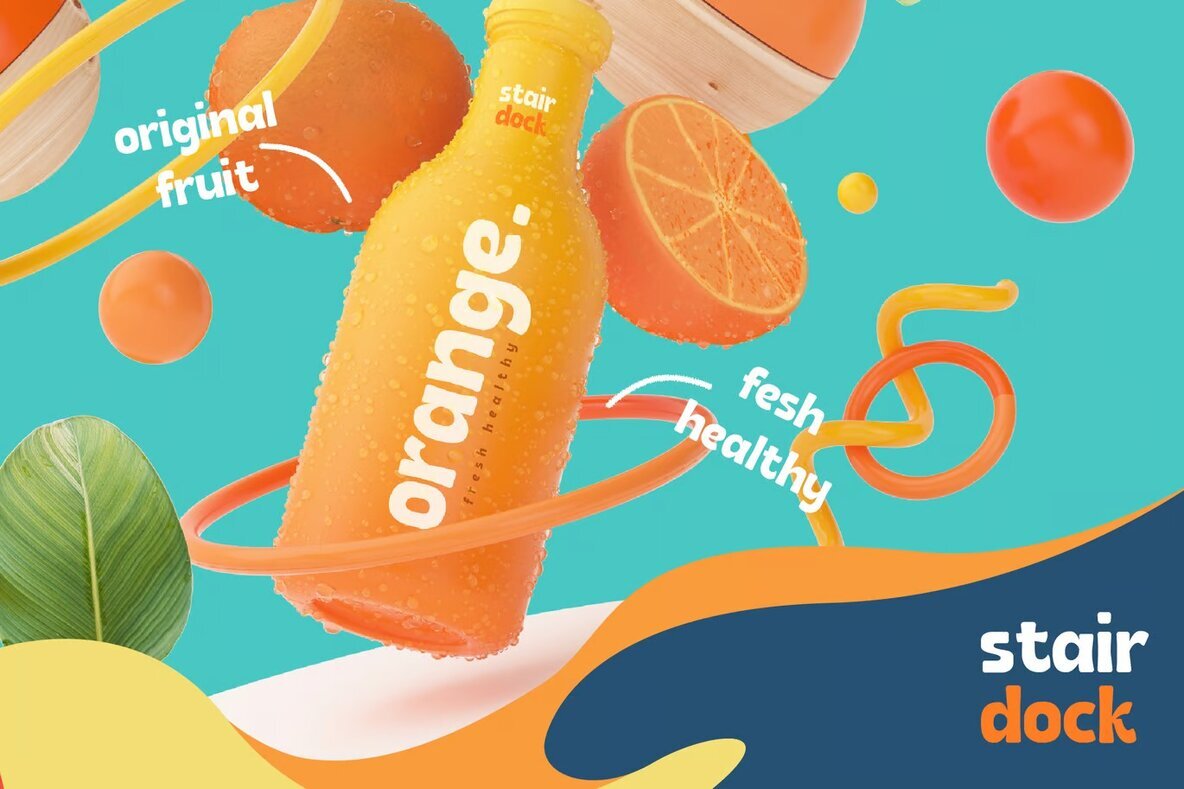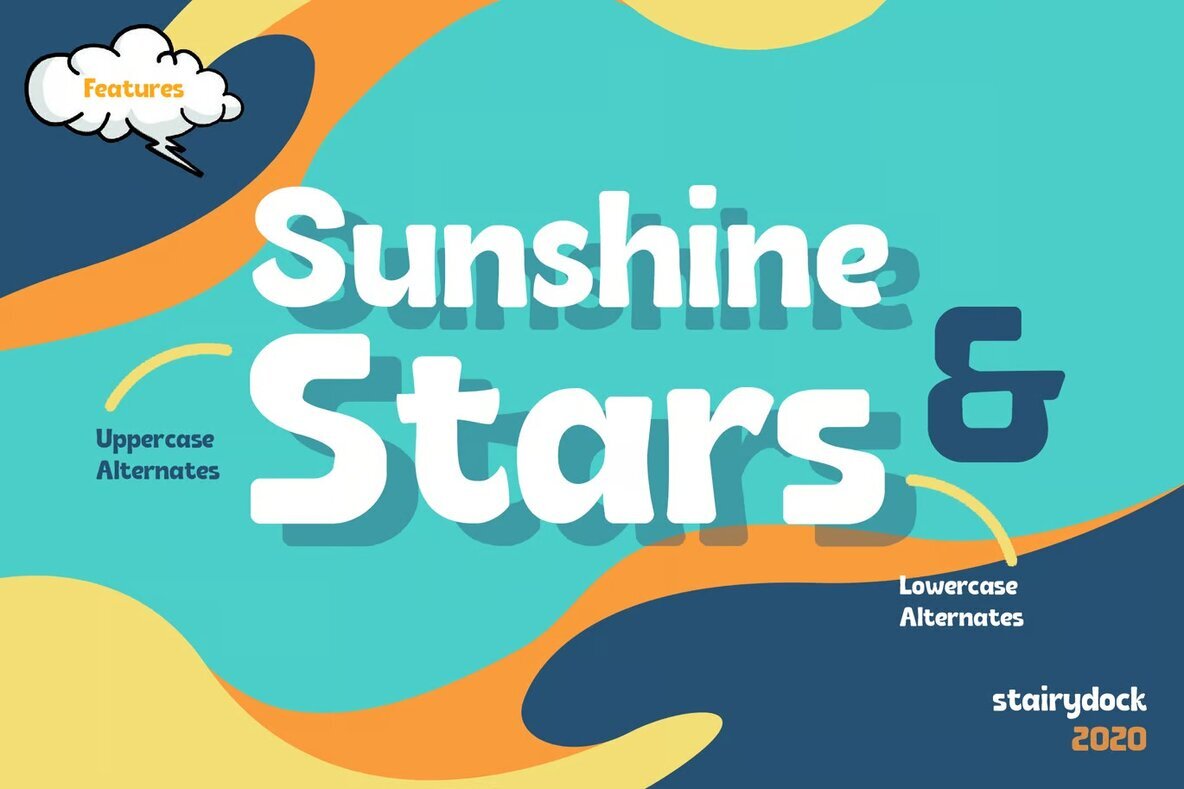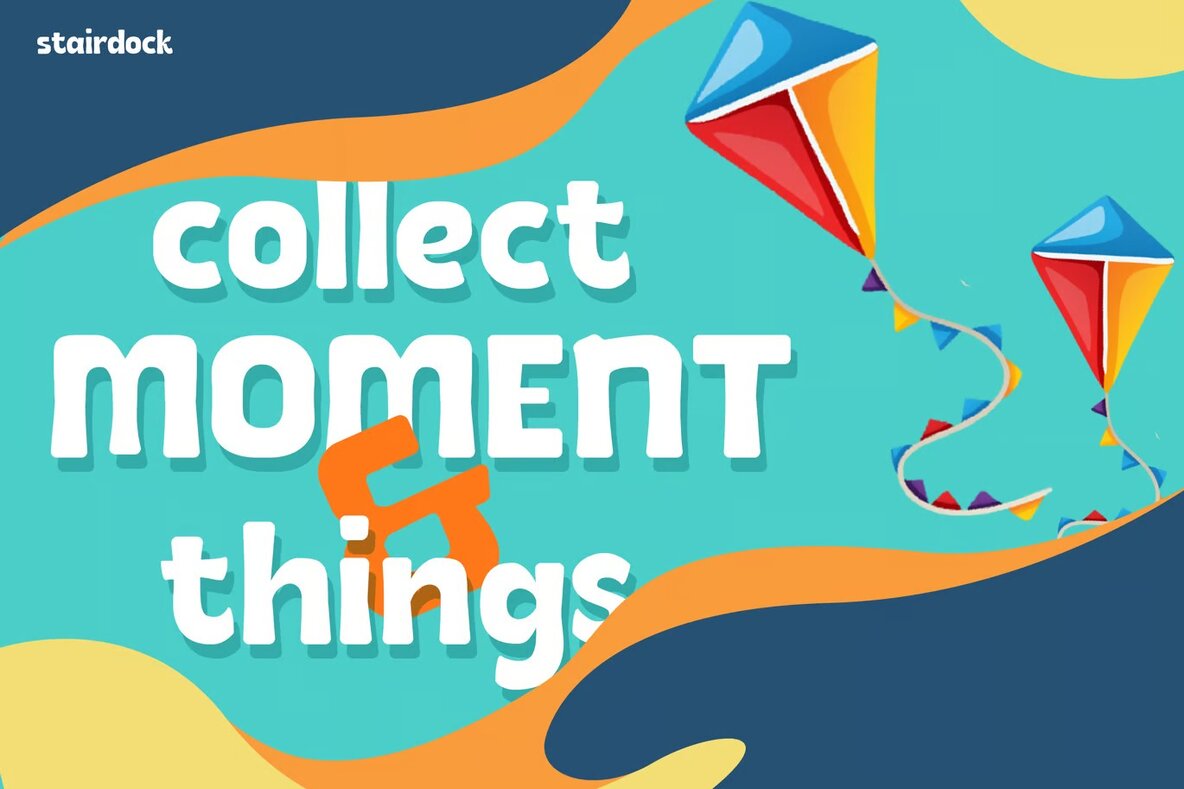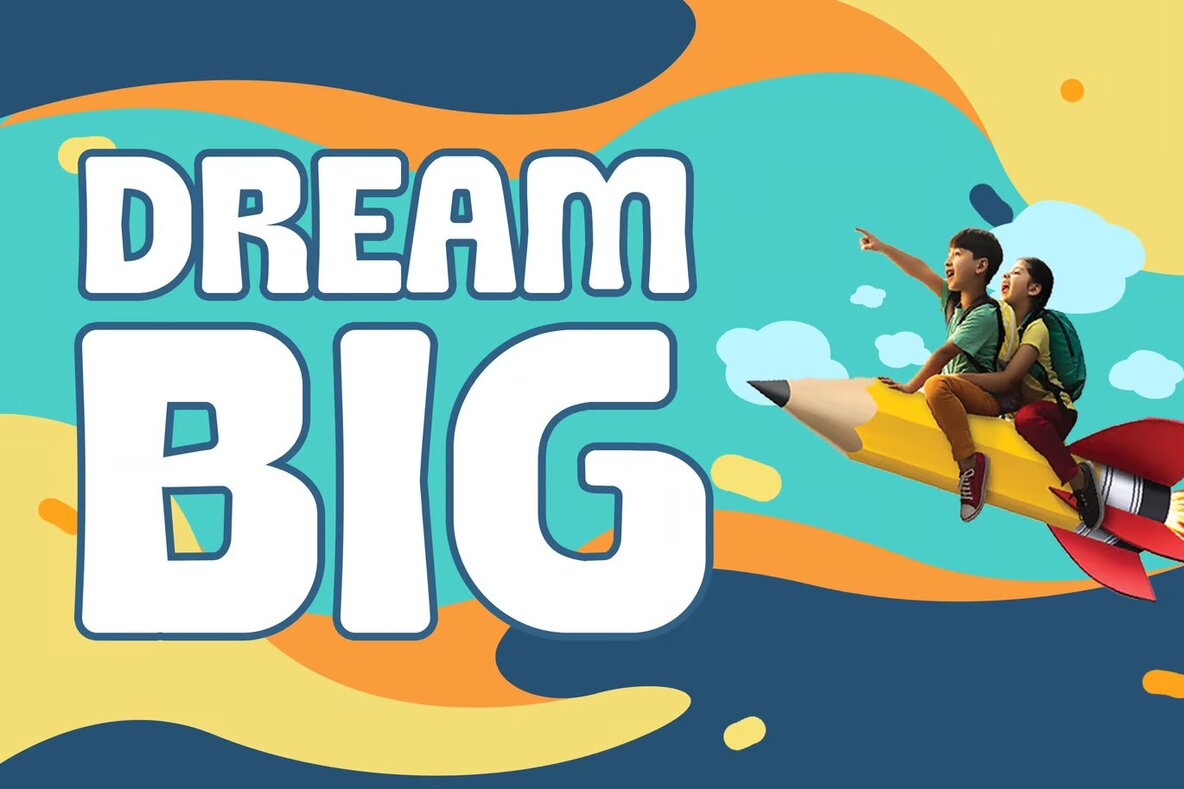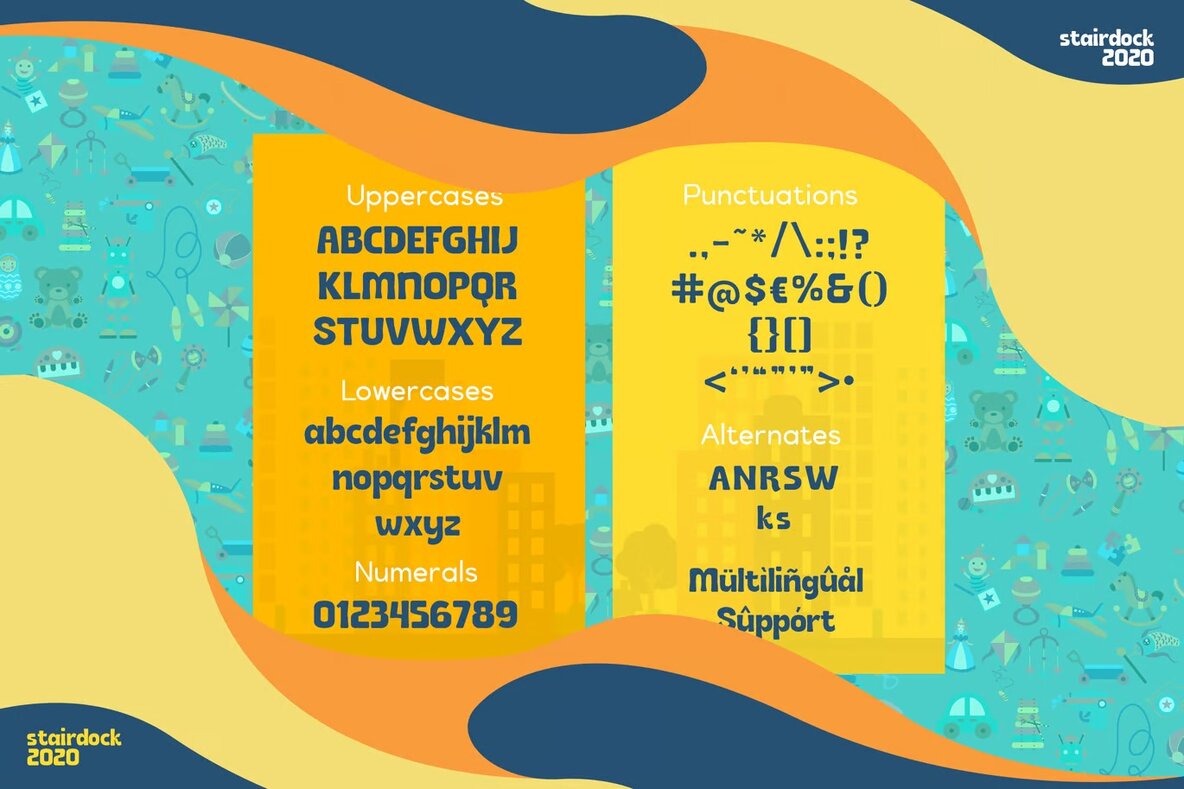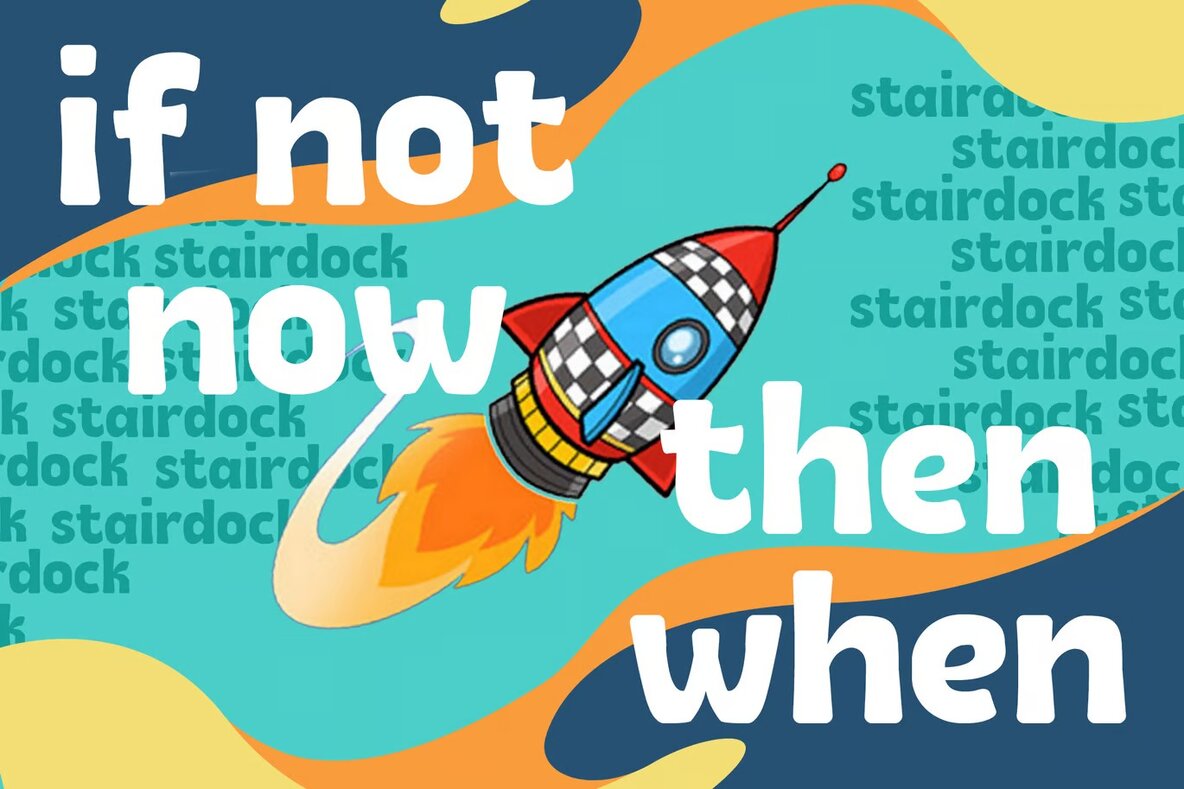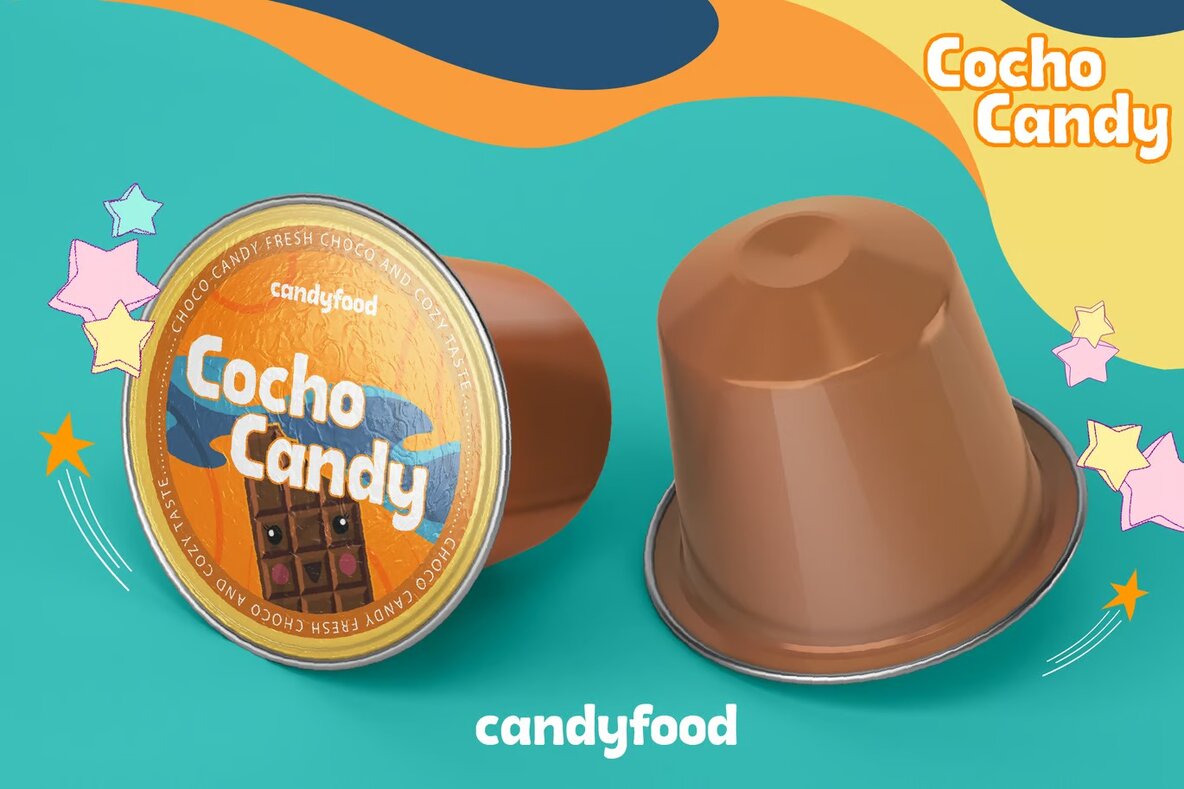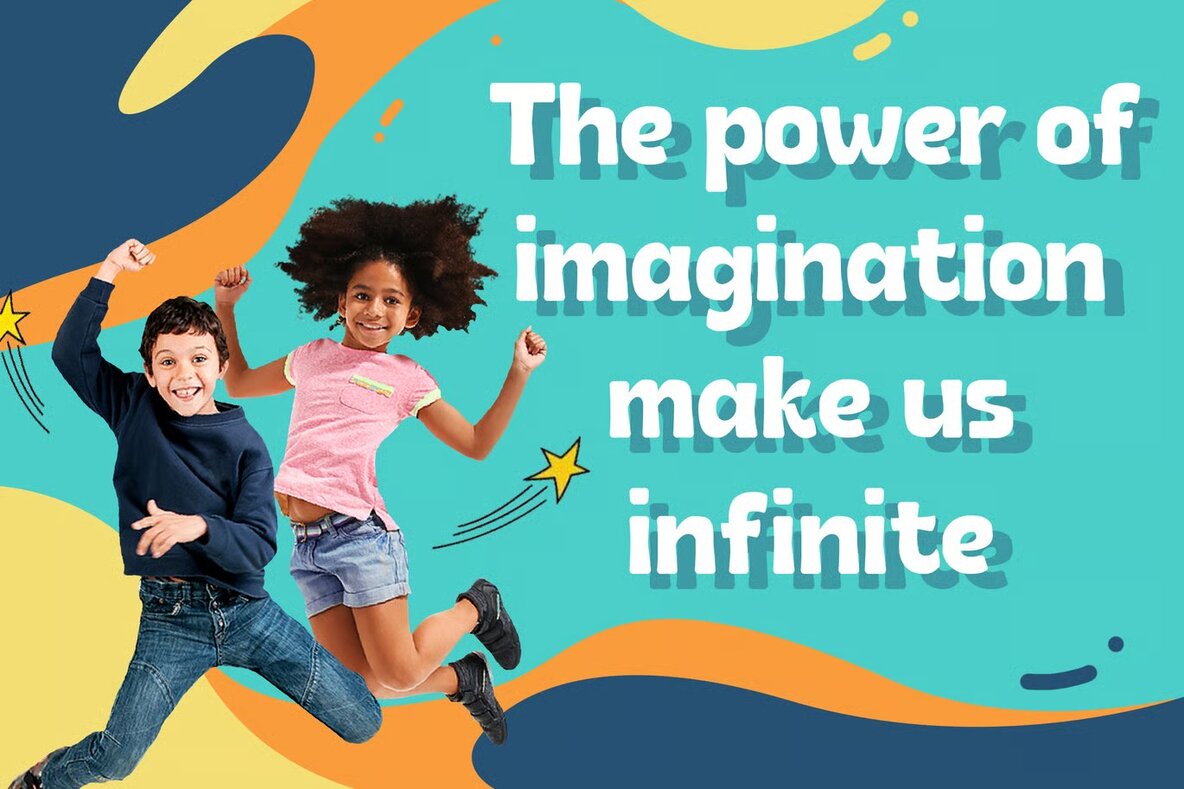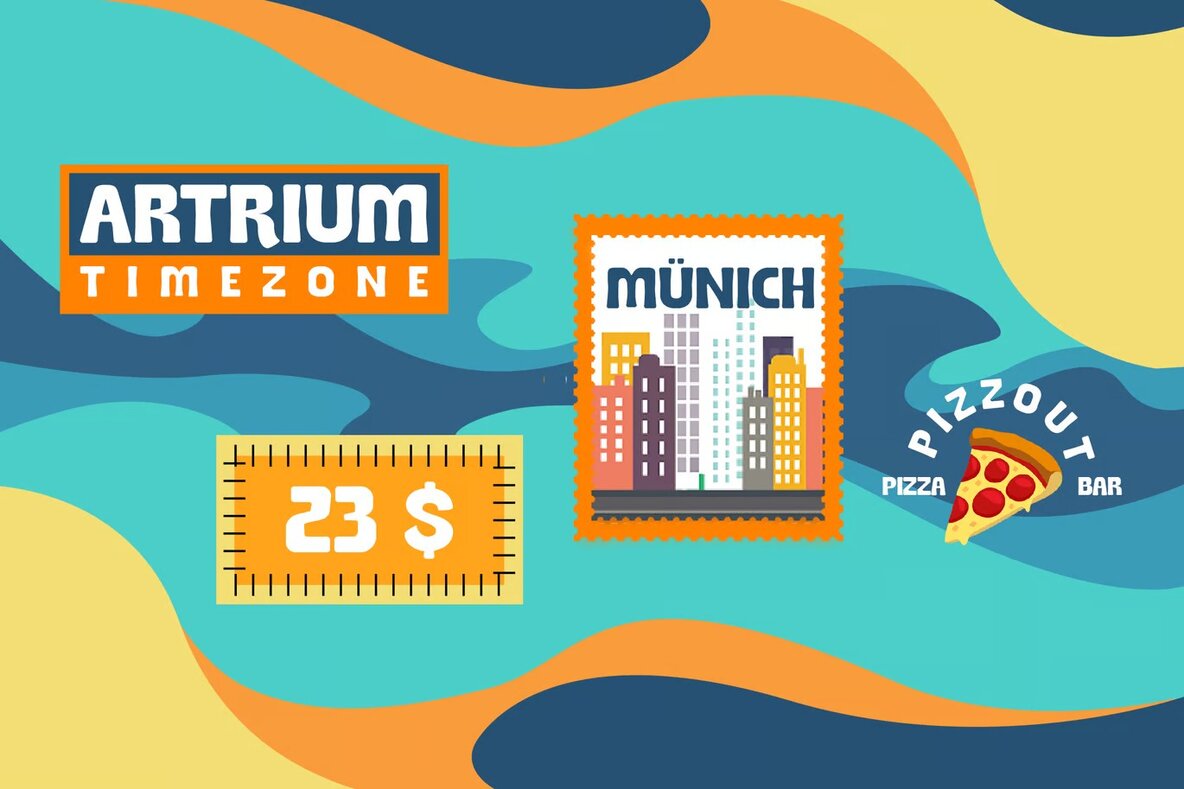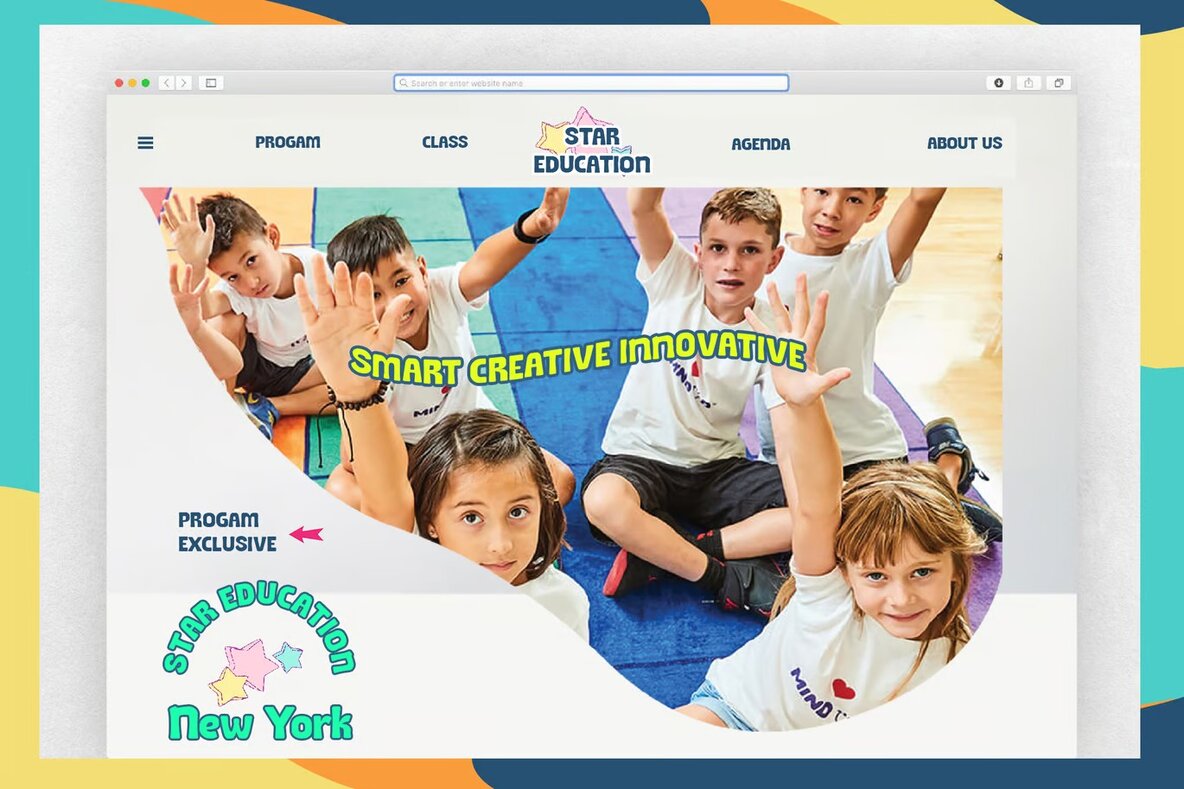
Stairdock Font
Stairdock is a playful and charming sans-serif font, perfect for designs requiring a touch of whimsy and fun. This font is ideal for projects like children's game logos, branding for kindergartens, and vibrant food and beverage packaging. Whether you're working on modern advertising, cartoons, animations, or children's books, Stairdock provides an engaging style that appeals to younger audiences.
Additionally, Stairdock is suitable for toys branding, poster quotes, book covers, web content, and card designs. Its versatile nature makes it a great choice for any hand-lettered needs, ensuring your designs stand out with a cute and lively appearance.